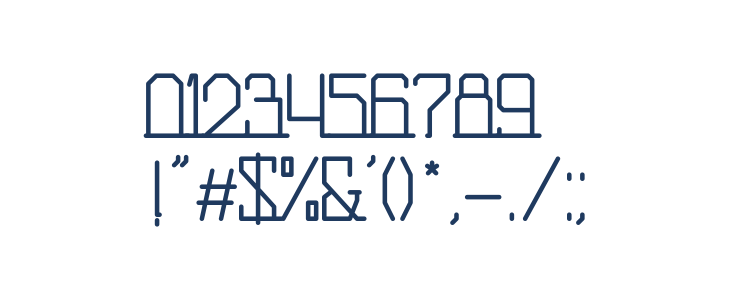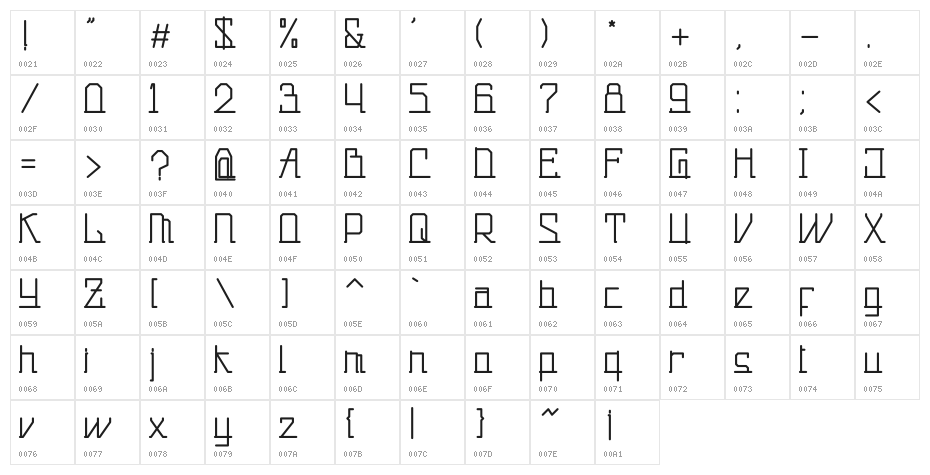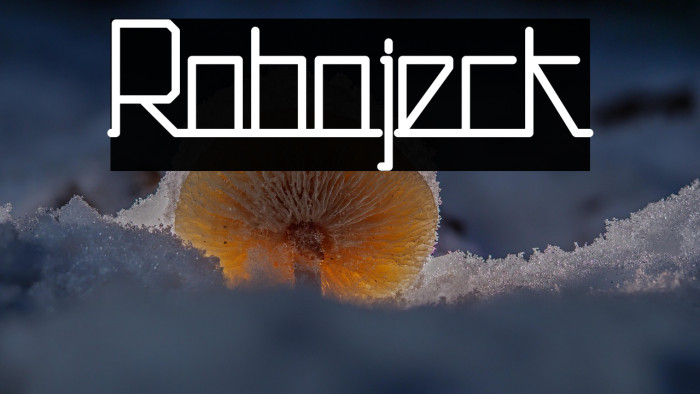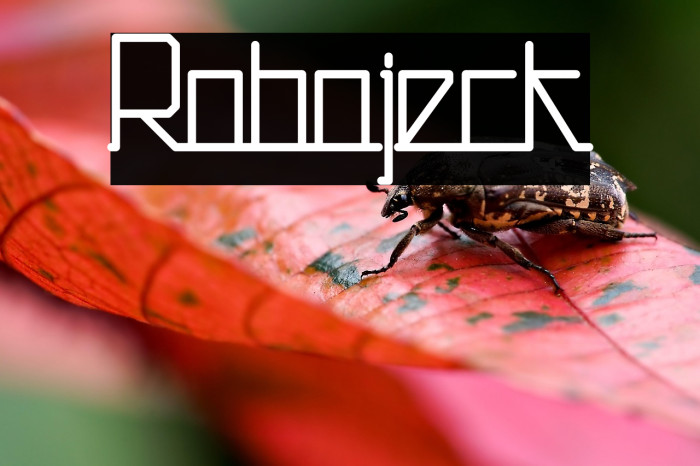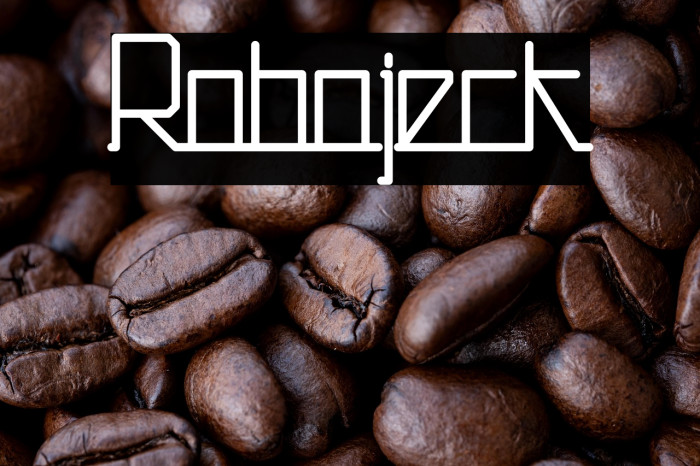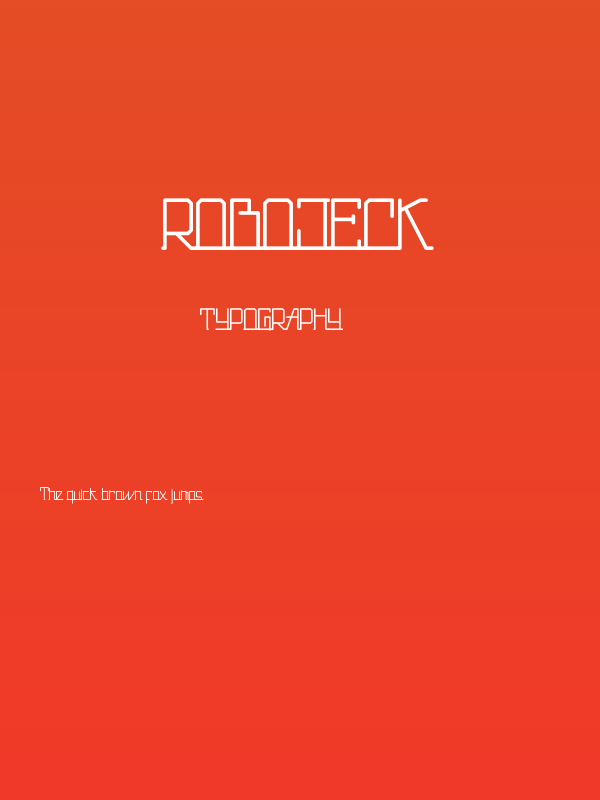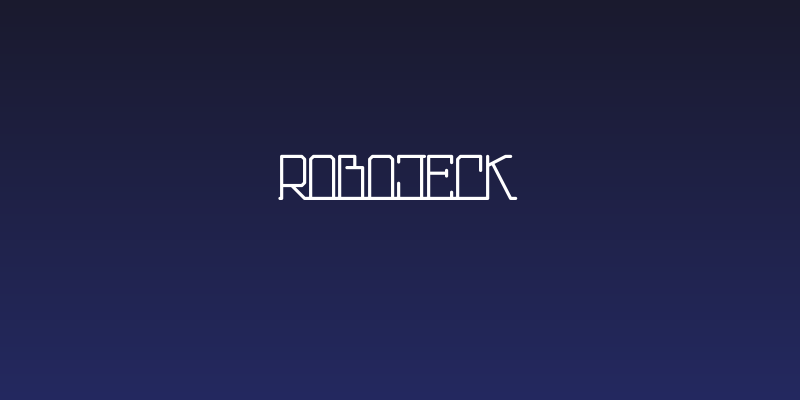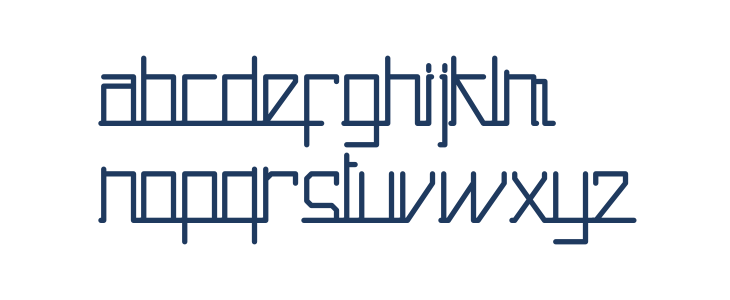
Robojeck Font
Robojeck Description
This font exhibits a futuristic and geometric design, characterized by its angular and linear structure. Each character is crafted with a consistent stroke width, creating a uniform appearance across the alphabet. The uppercase letters are bold and striking, with sharp angles and clean lines that give a sense of modernity and precision. The lowercase letters maintain this geometric style, offering a seamless transition between cases. Numbers and special characters follow the same design principles, ensuring a cohesive look throughout. The font's unique style makes it suitable for projects that require a contemporary and tech-inspired aesthetic.